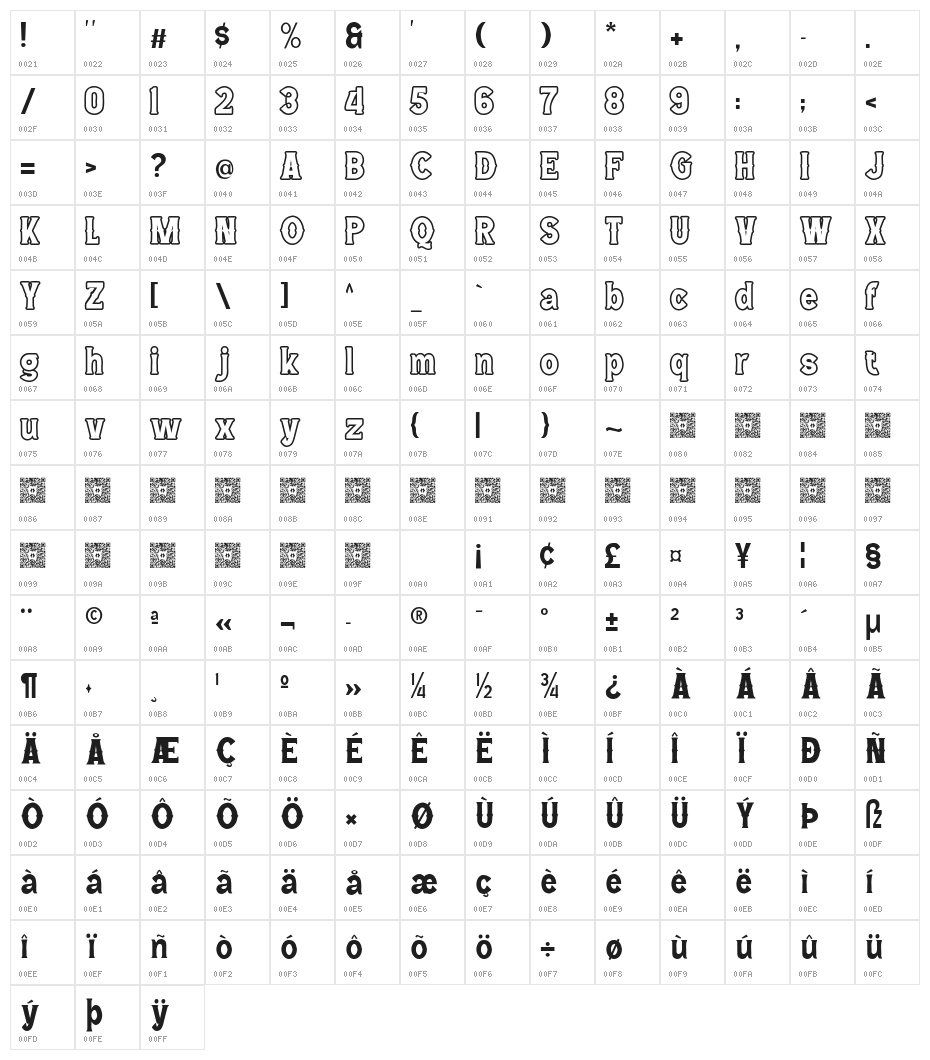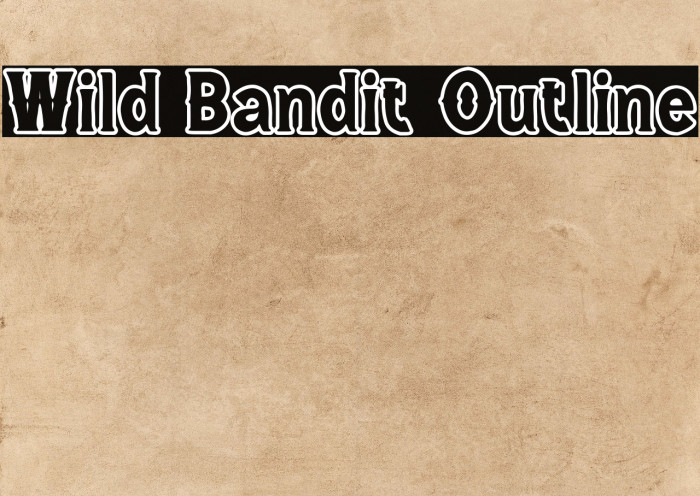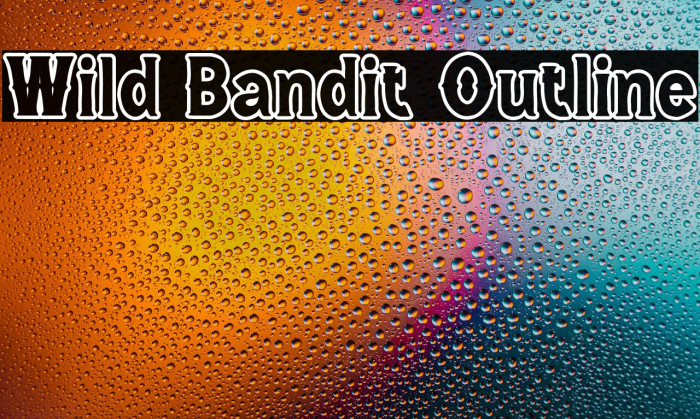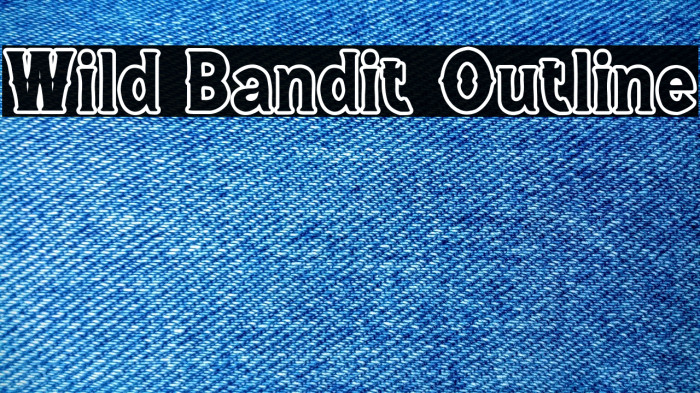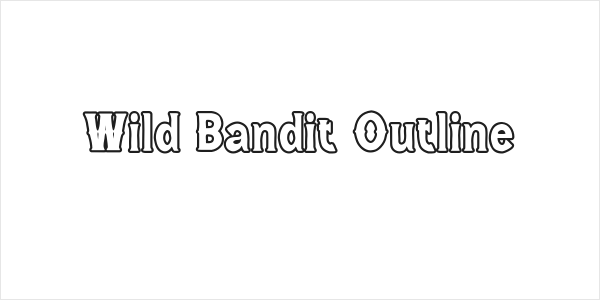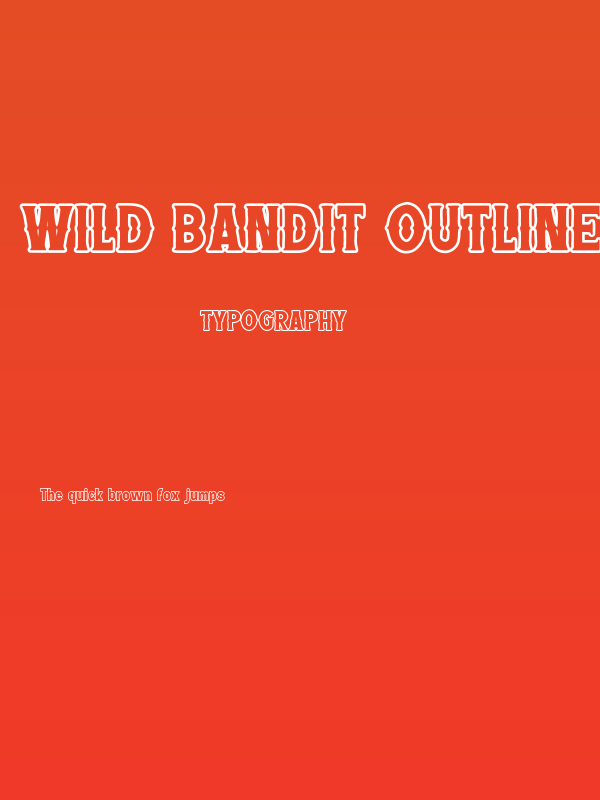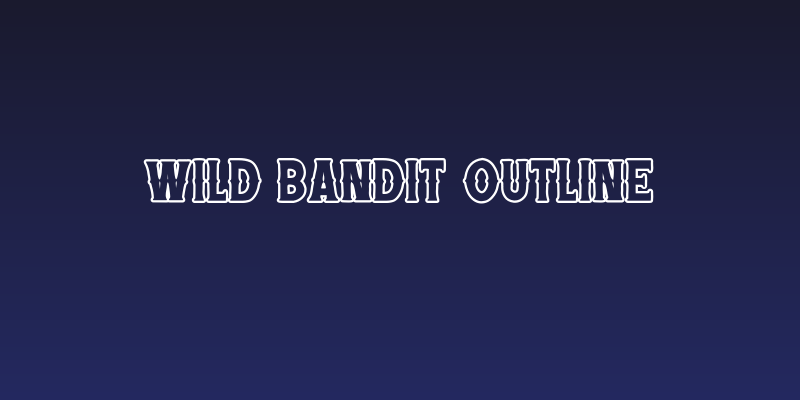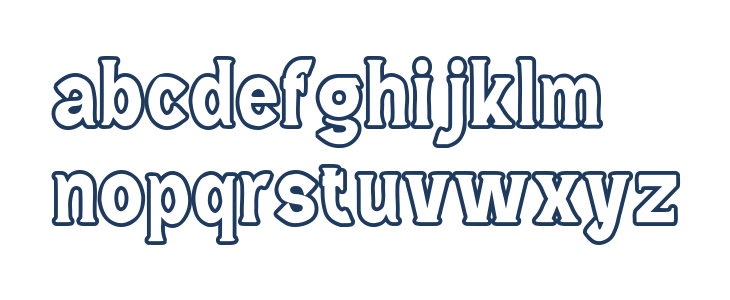
Wild Bandit Outline Font
Wild Bandit Outline Description
This font features a bold, outlined style that gives it a striking and eye-catching appearance. The characters are uppercase and lowercase with a consistent outline that adds depth and dimension. The numbers and special characters follow the same outlined design, ensuring uniformity across all glyphs. The font's playful yet strong presence makes it suitable for projects that require a bold statement. Its unique style is reminiscent of vintage western or circus themes, making it ideal for creative and decorative uses.
| Overall Style | Vintage, Decorative |
| Proposed Projects | Ideal for posters, logos, event invitations, and any design needing a bold, decorative touch. |